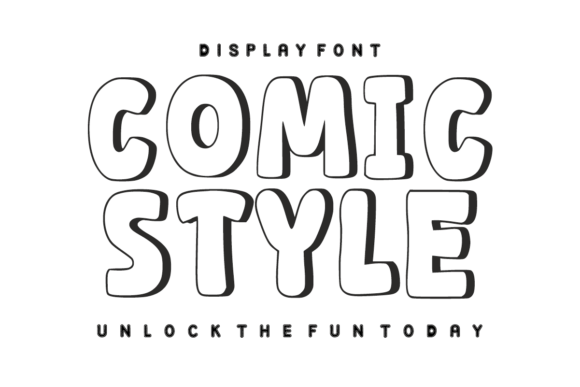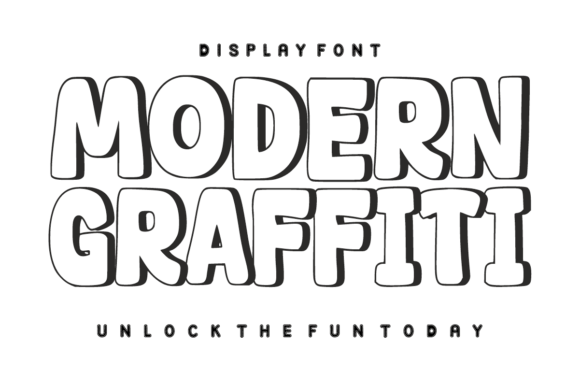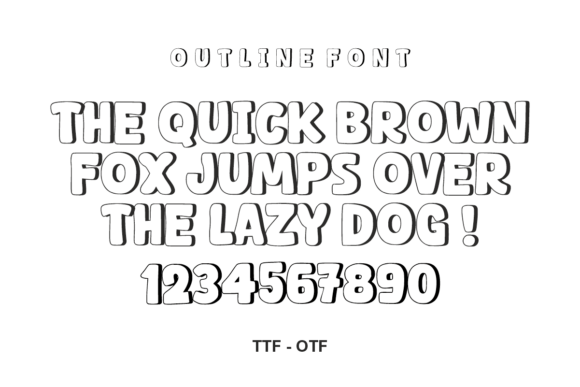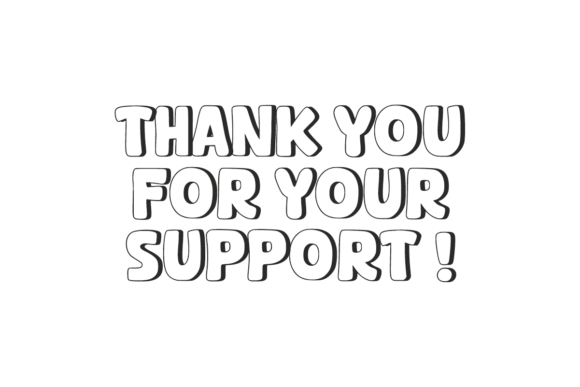
Retro Outline Font – Free Download
Introduction to Retro Outline Font
✌️ Bring back the groove with “Retro Outline”.
✌️ Retro Outline is a bubbly, hand-drawn display font that perfectly captures the “Ultimate Cartoon Spirit” with a nostalgic vintage twist Featuring bold, clean outlines and a playful silhouette, this font is designed to give your projects a fun, 70s-inspired look that pops off the page.